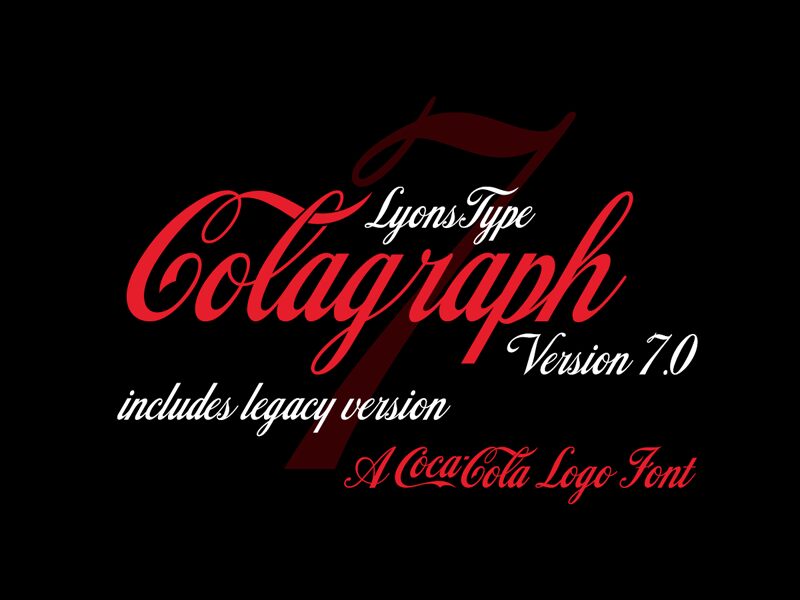
Colagraph, formerly LT Drink, is a typeface based on Coca-Cola wordmark. This typeface also tends be a revival of the partially seen Cola Script font (designed by Bob Alonso of BA Graphics in 1974), but with a variety of additions such as international language support, stylistic alternates (swashes), and Cyrillics. Stylistic alternates can also be accessed in Notepad. To access them, type (letter) ~ for upper swash, and (letter) _ for lower swash.
Update in Version 6.5:
K, O, Q, X, Z updated with supremely close guesses.
Update in Version 7.0:
Real deal letters, numbers and punctuation digitized from a reference image on Instagram.
Colagraph Legacy Medium
A revival of the Cola Script typeface by Bob Alonso (BA Graphics).